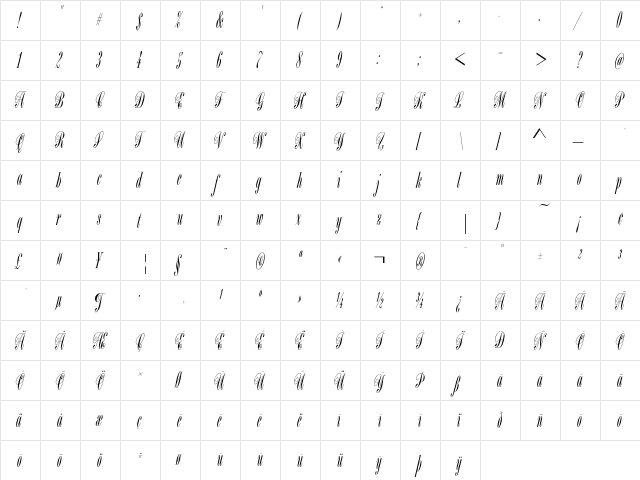
BordeauxICG Script
| Style | Script |
Design Context for BordeauxICG Typeface
BordeauxICG brings a calligraphic fluidity to the page — its connecting strokes and expressive curves give it an unmistakably human quality.
Font Pairing: Combine BordeauxICG with a simple geometric sans for maximum contrast — the tension between flowing curves and clean structure is a classic typographic pairing.
Pro Tip: Pair BordeauxICG with a clean sans-serif for supporting text. The contrast between fluid script and geometric structure creates an elegant typographic hierarchy.